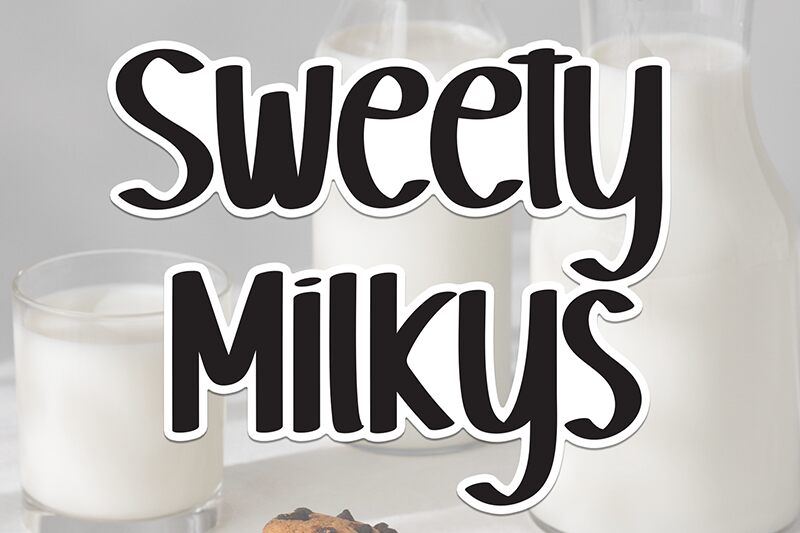
Sweety Milkys font by Andi Moz is a free handwritten font with curved forms and an informal appearance. Casual and friendly in mood, this modern script font blends elegance and dynamism while maintaining a contemporary and approachable character.
This font is suitable for a variety of branding projects and digital or printed materials. Whether it is greeting cards or small business logos, Sweety Milkys will add its touch. Gift packages, tags, and labels in the personal and professional context can benefit from this font. It is also a great font for food packaging, skincare, apparel, and similar niche brands.
This is a sweet and friendly handwritten display font. Cute and fun, this font is perfect for creating wedding invitations, cards, or any other design that requires a playful touch!